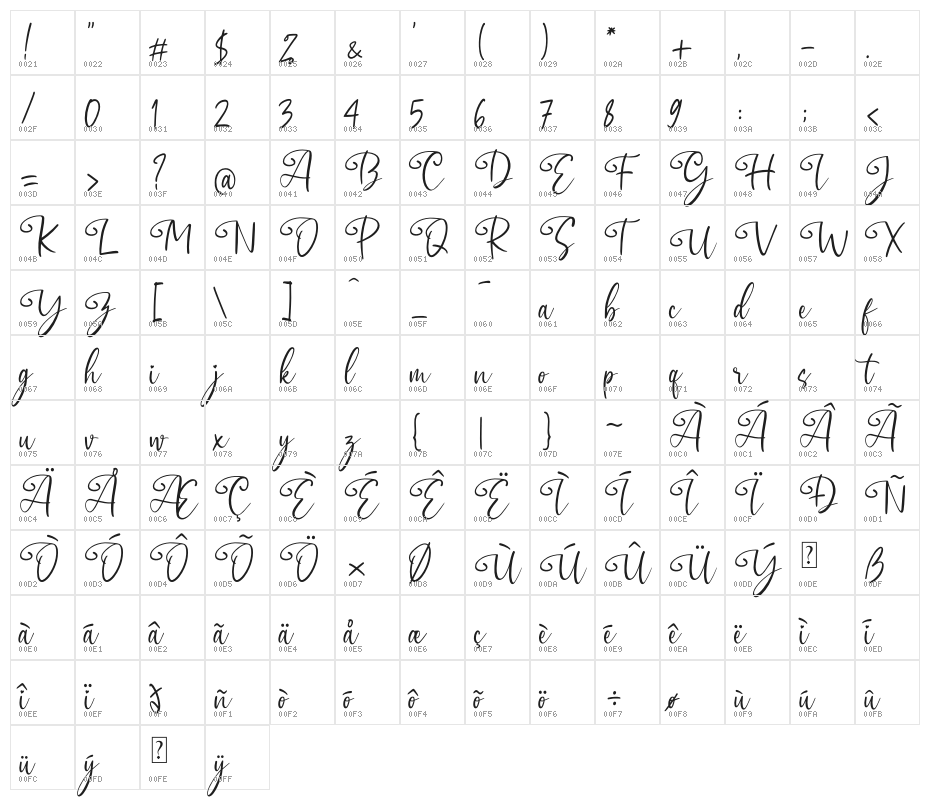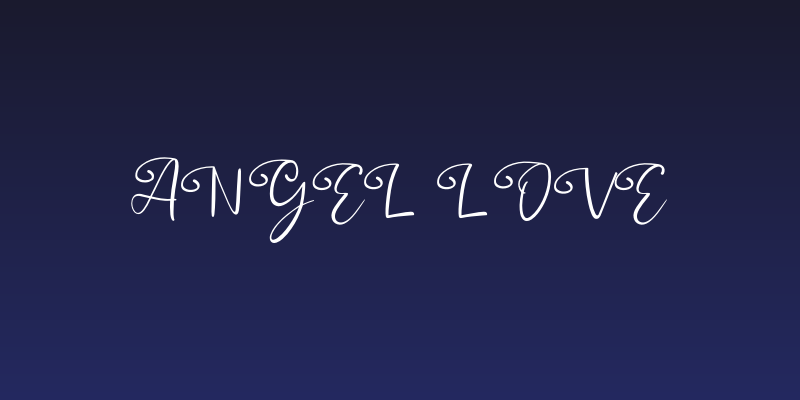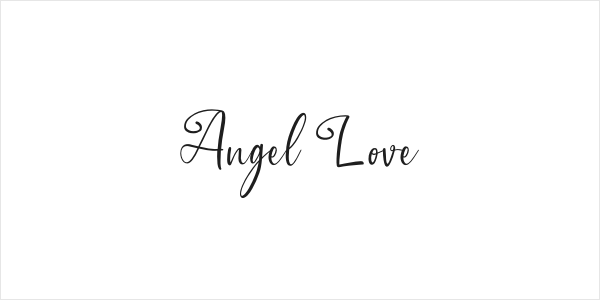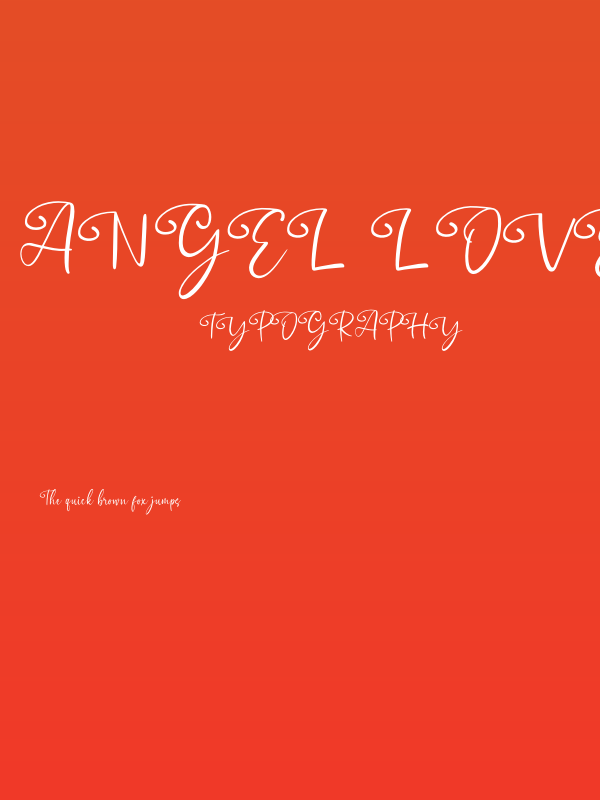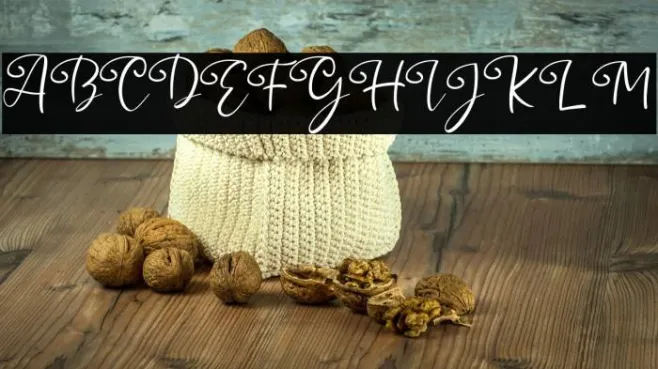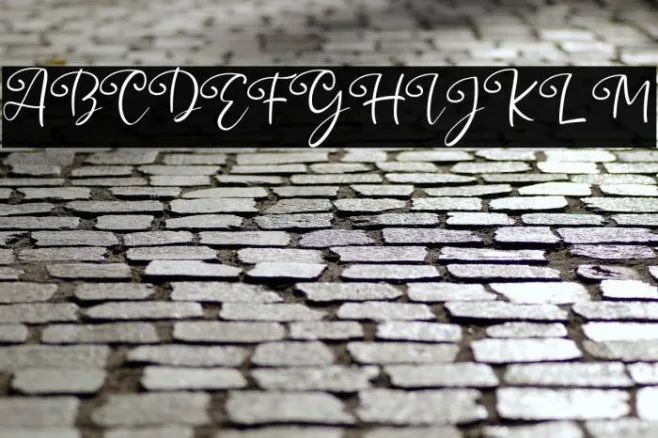
Angel Love Font
Angel Love Description
This font exudes a romantic and elegant script style, characterized by its flowing, cursive letters that mimic the fluidity of handwriting. The uppercase letters are adorned with subtle flourishes, adding a touch of sophistication and charm. The lowercase letters maintain a consistent slant, enhancing the overall graceful appearance. Numbers and special characters are designed to complement the script, maintaining the same fluidity and elegance. The font's design is perfect for projects that require a personal and heartfelt touch, such as wedding invitations, greeting cards, and branding for luxury products.
| Use Case | Headlines, Invitations, Branding |
| Proposed Projects | Ideal for wedding invitations, greeting cards, and luxury branding. |